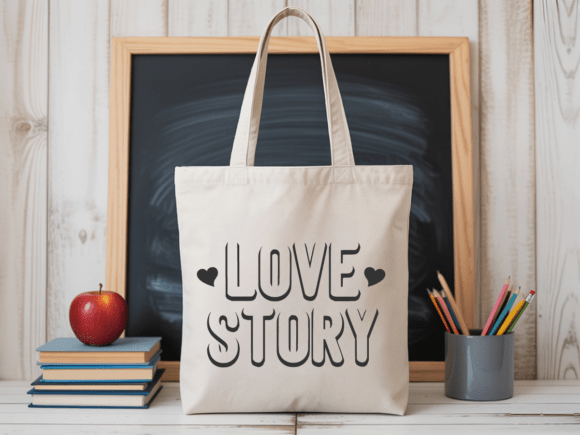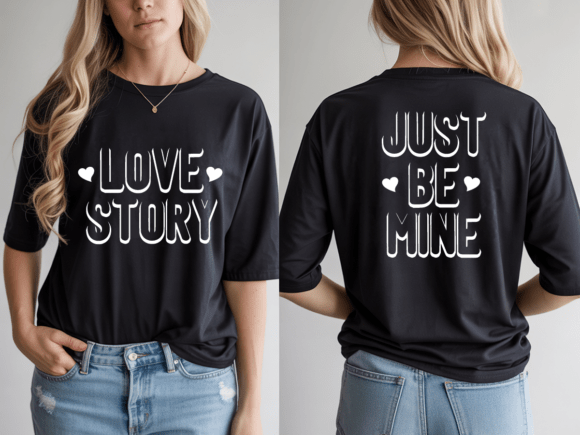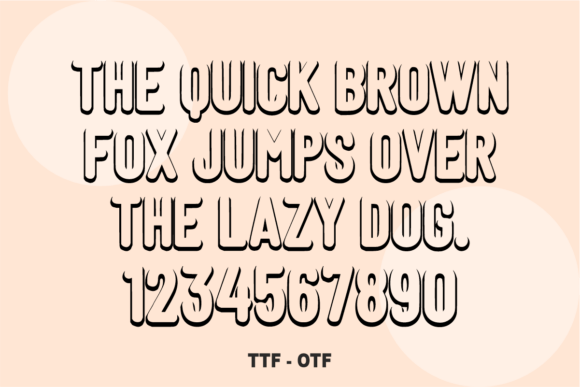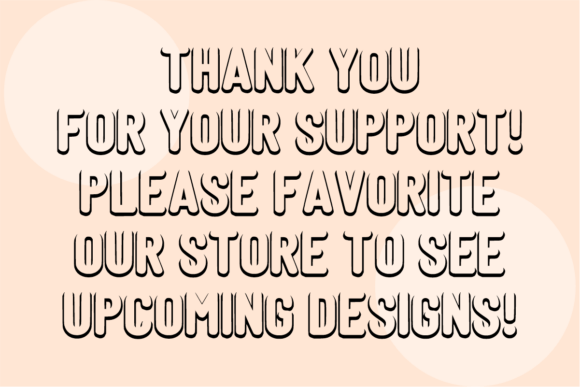
Elevate Your Designs with Amazing Shadow
Do you remember the excitement of designing your first t-shirt as a kid? The thrill of choosing the perfect font, color scheme, and graphics to make your creation stand out? For many of us, that creative spark never fades, and we continue to seek out new ways to express ourselves through design.
That’s where Amazing Shadow Font comes in – a unique display font that adds a bold, playful, and nostalgic touch to any project. With its distinctive “shadowed” effect, Amazing Shadow Font is perfect for designers who want to give their work a modern-retro aesthetic. Whether you’re creating merchandise for a small business or personal DIY crafts, this font is designed to stand out and make a statement.
As a designer, you know the importance of having the right tools at your disposal. That’s why we’re excited to share Amazing Shadow Font with you – a valuable addition to any design arsenal.
Amazing Shadow Font Key Features
- Unique Characteristics: The Amazing Shadow Font features a unique blend of modern and vintage elements, with intricate shadow effects that add depth and visual interest to any text.
- Font Styles: Includes 3 font styles: Regular, Bold, and Italic, providing flexibility for designers to choose the perfect style to match their project’s tone and mood.
Designer Review: Amazing Shadow Font
Overall, I think Amazing Shadow Font is a decent addition to any designer’s toolkit, but it’s not without its limitations. ✨ Here are a few things that work well:
- It’s a great choice for creating dramatic, eye-catching headlines and titles.
- The font’s unique shadow effects can add a lot of visual interest to designs.
- It’s relatively easy to use, even for designers who are new to font manipulation.
However, there are a few things to be aware of: ⚠️
- The font can be a bit overwhelming when used extensively, so it’s best to use it in moderation.
- The shadow effects can sometimes look a bit pixelated, especially at smaller font sizes.
- The font may not be as versatile as some other options, making it less suitable for body text or other areas where readability is key.
Overall, I think Amazing Shadow Font is a solid choice for designers who want to add a bit of flair to their designs, but it’s not a go-to font for me. It’s definitely worth checking out, but I wouldn’t recommend it for every project.
Some common use cases for Amazing Shadow Font include:
1. Creating eye-catching headlines and titles.
2. Adding depth and dimension to text elements.
3. Creating a sense of drama and emphasis.